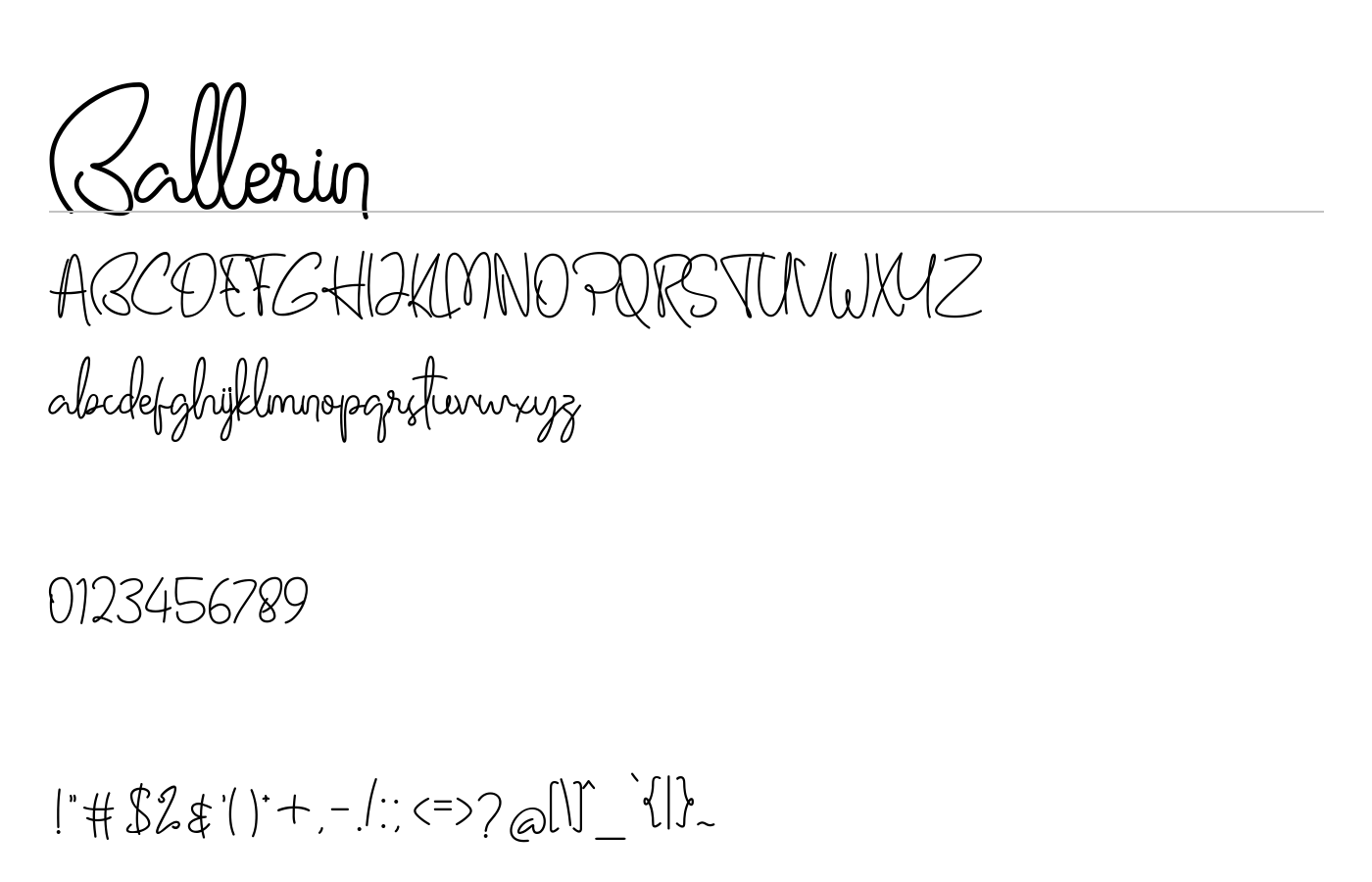
Ballerin is a delicate, hand-drawn script font with a light weight and narrow width, characterized by its tall, elegant letterforms and smooth, flowing strokes. Its playful yet refined style makes it perfect for creative branding, invitations, and editorial designs where a personal, artistic touch is desired. This font’s airy and whimsical feel communicates charm and sophistication in a casual, approachable way.
Ballerin Font
About Ballerin Font
| Font family | Ballerin Font |